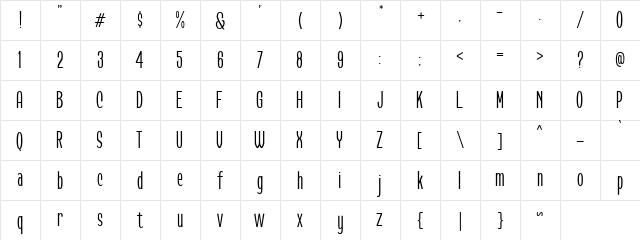
Conseration DEMO Regular
Design Context for Conseration DEMO Typeface
Conseration DEMO takes a measured approach to typography — its balanced proportions and neutral character make it a reliable workhorse for both digital and print work.